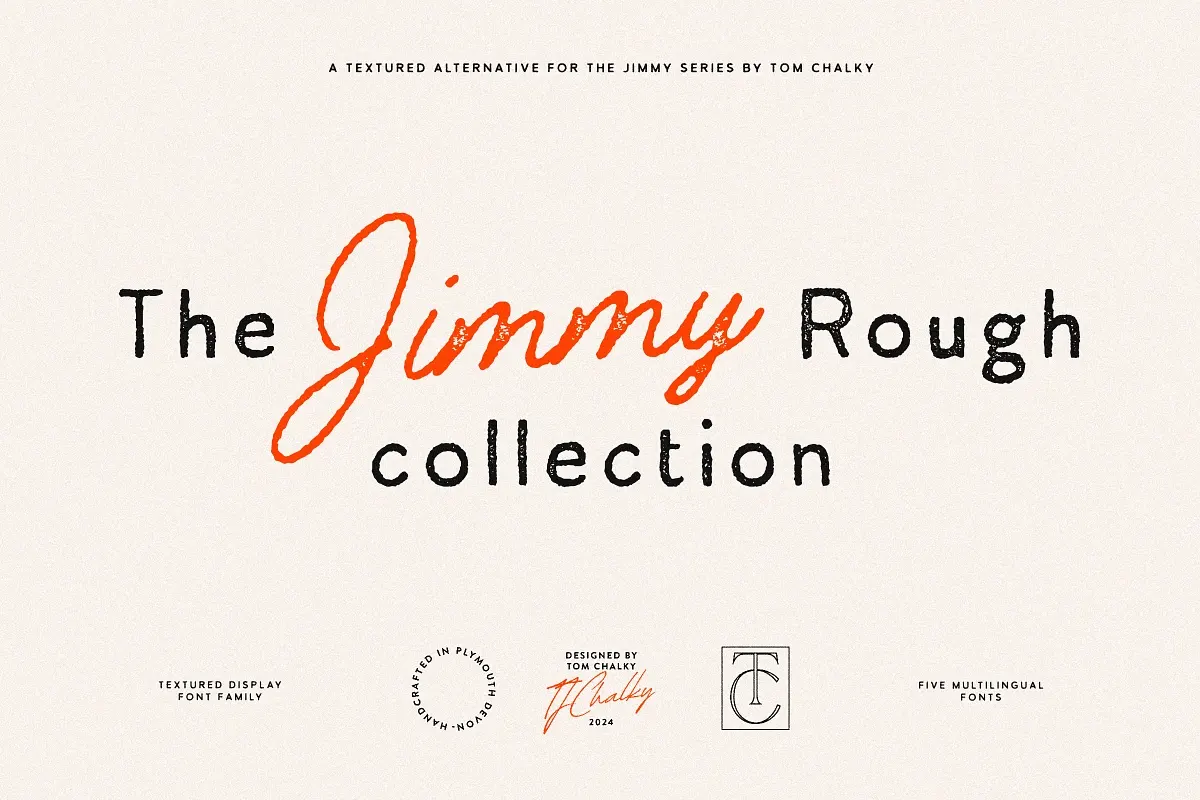
Jimmy Rough Font Free Download is a gritty, textured font collection designed to give your typography a rugged, handcrafted feel. Perfect for vintage logos, bold packaging, posters, apparel, and branding that craves character, this font brings a worn, authentic look that instantly stands out.
The collection includes multiple styles—such as rough, clean, bold, and outline variations—allowing you to mix and match for maximum visual impact. Each style captures that perfectly imperfect, weathered aesthetic, adding depth and a handcrafted edge to your designs.
Whether you’re designing for a retro brand, an outdoor-themed project, or just want to inject some raw personality into your work, Jimmy Rough Font Free Download delivers style and substance. You can freely use it for testing and personal projects. For any commercial use, remember to purchase the proper license. Add a bold, textured voice to your visuals with this versatile rough font collection.